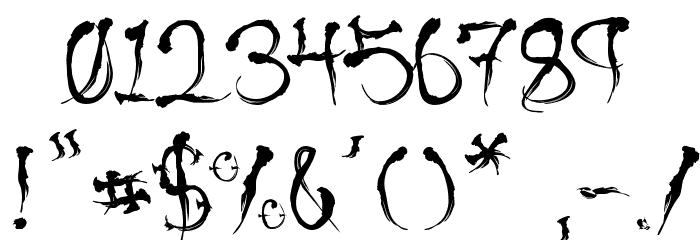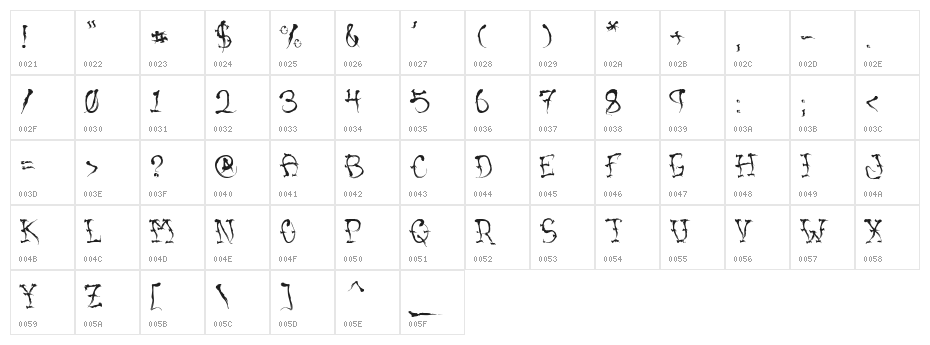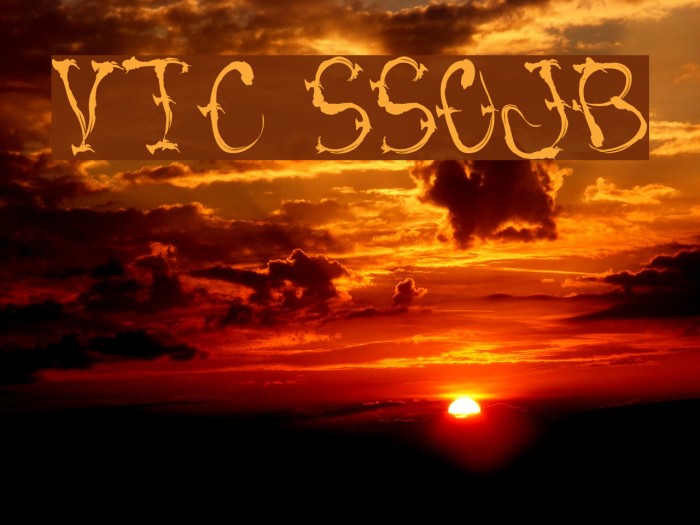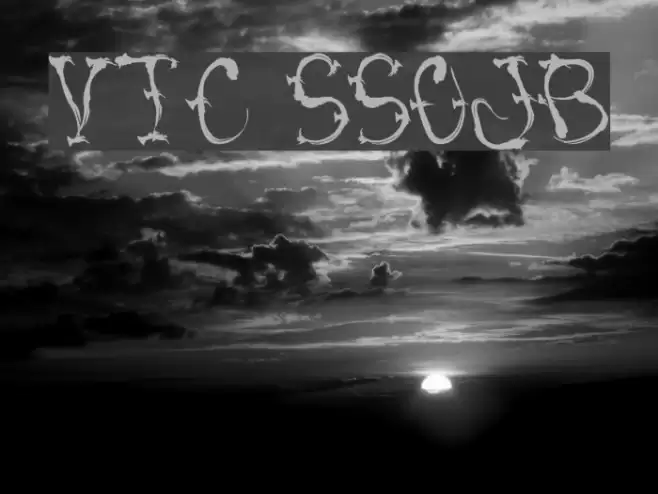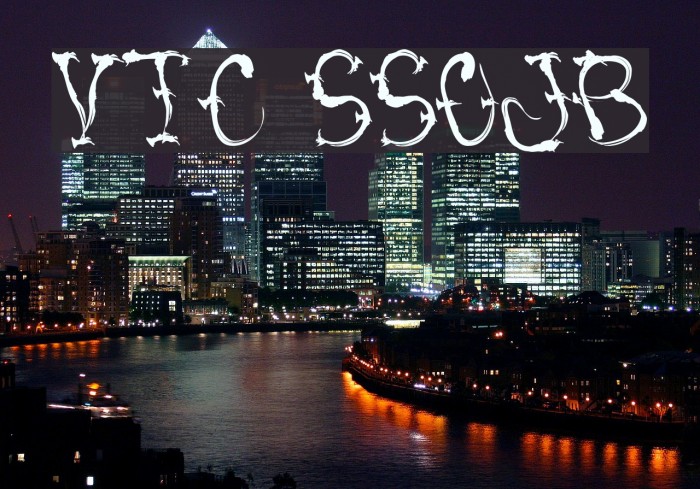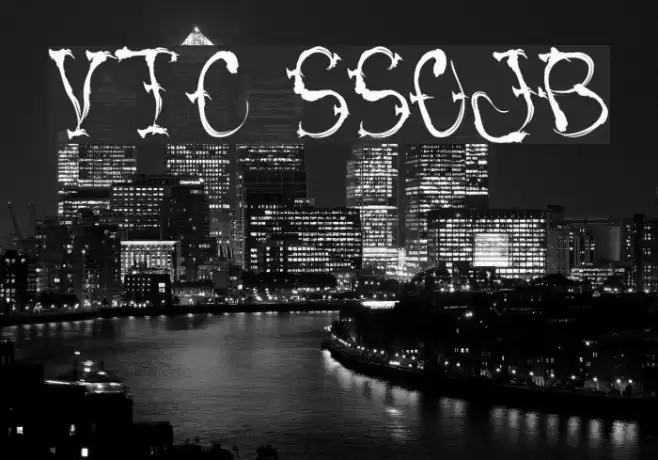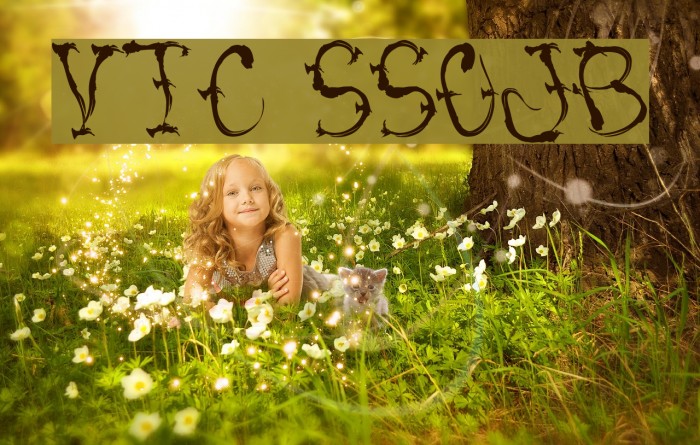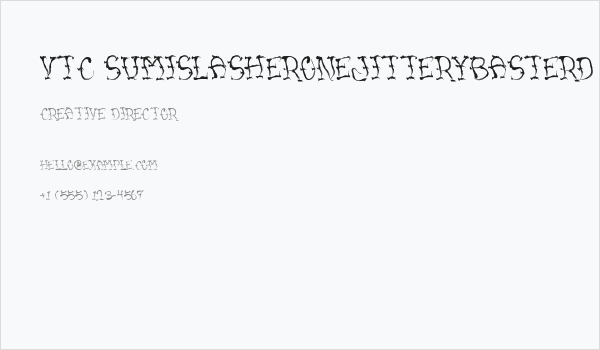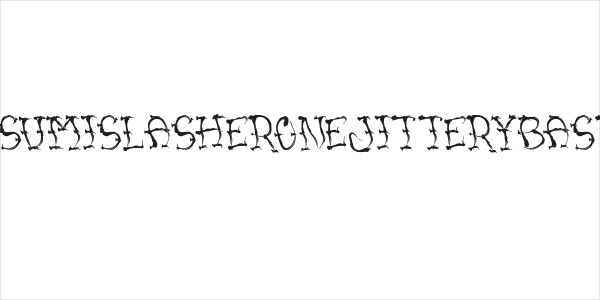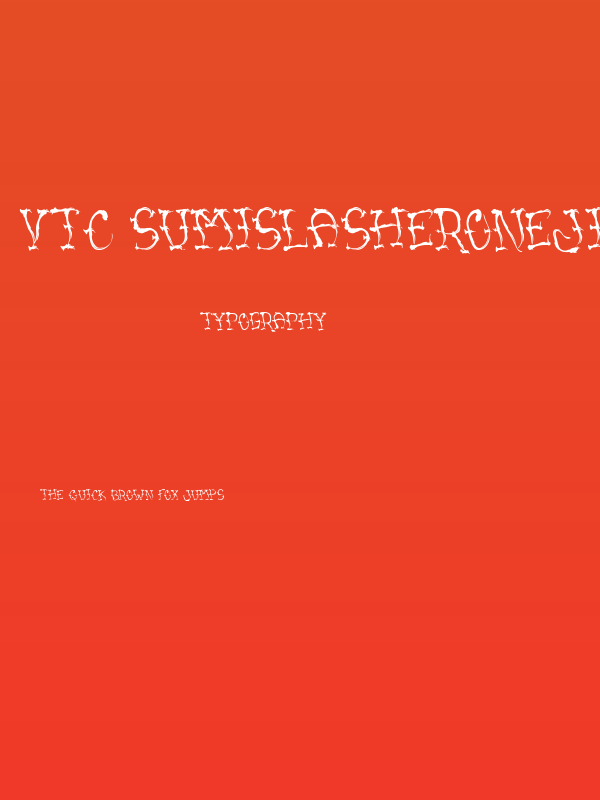
VTC SumiSlasherOneJitteryBasterd Font
VTC SumiSlasherOneJitteryBasterd Description
This font features a highly decorative and edgy style, characterized by its sharp, jagged edges and irregular strokes. The letters appear as if they are crafted from thorny vines or barbed wire, giving it a distinctly aggressive and chaotic appearance. Each character is unique, with varying thickness and unexpected curves, creating a sense of movement and unpredictability. The font maintains a consistent baseline, but the heights and widths of the characters vary, adding to its dynamic and unsettling aesthetic. It is ideal for projects that require a bold and rebellious look, such as horror-themed designs, punk rock album covers, or edgy branding materials.
Use CaseLogos, Posters, Album Covers
Proposed ProjectsHorror-themed designs, punk rock album covers, edgy branding materials.